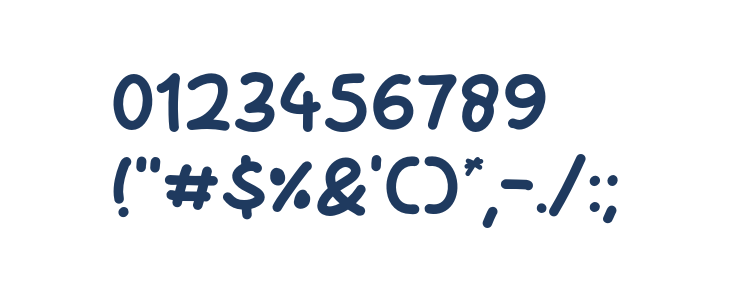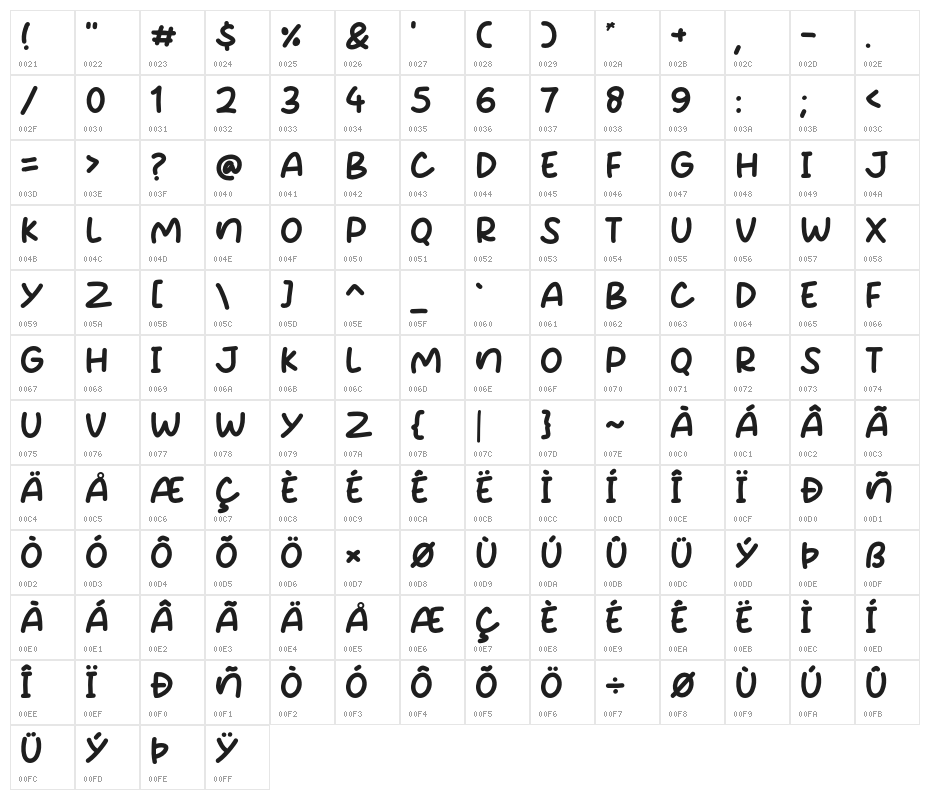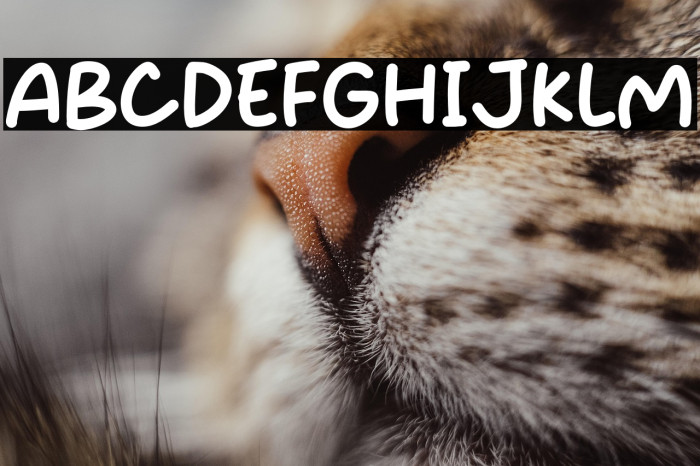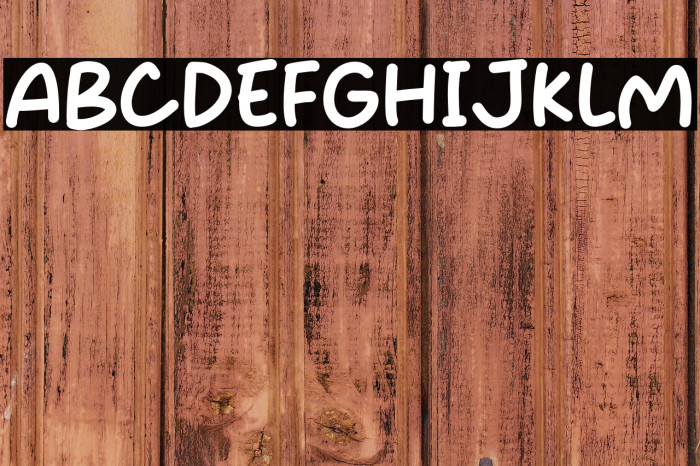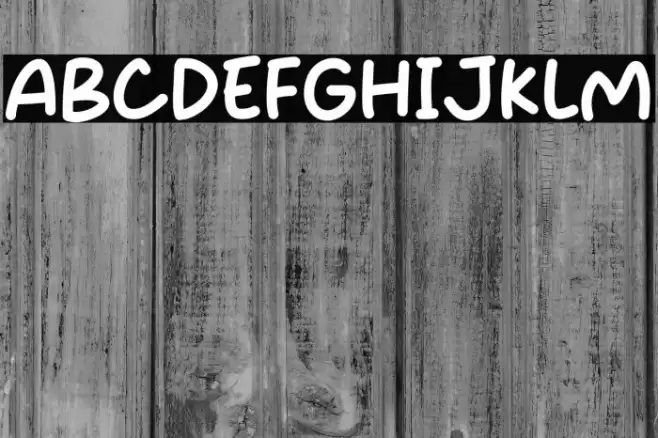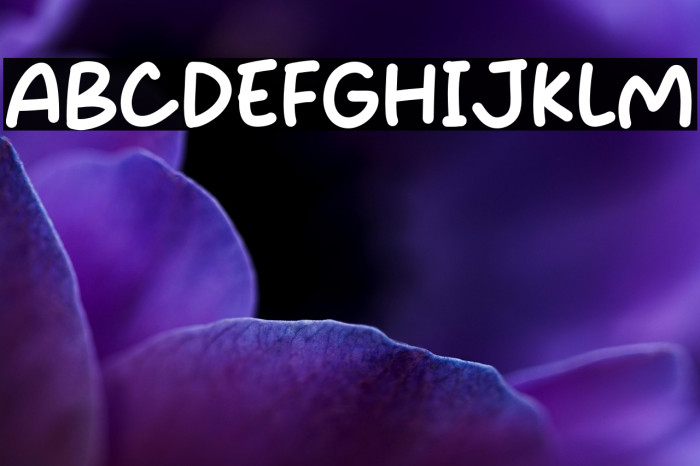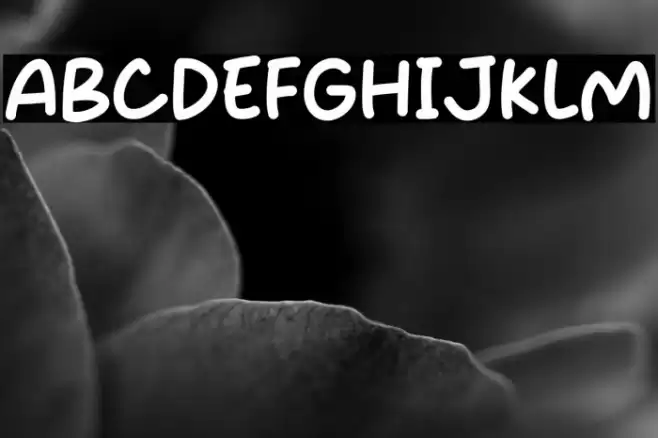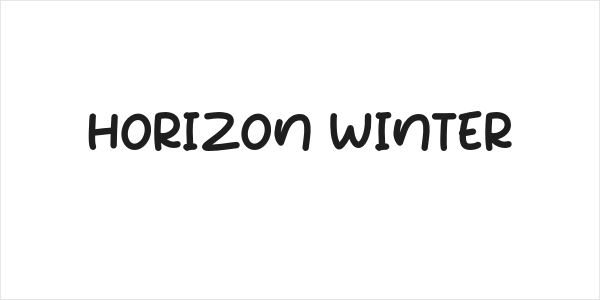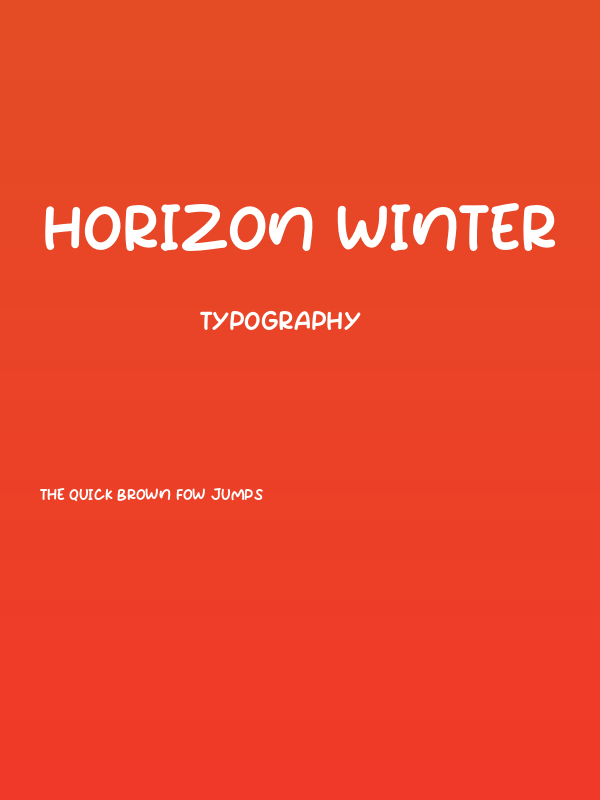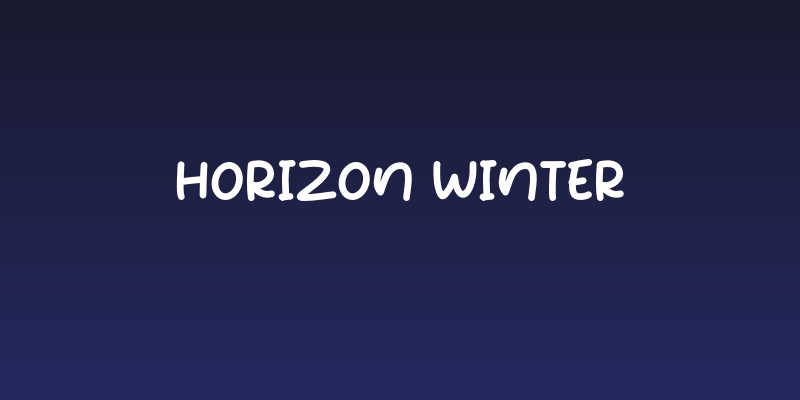
Horizon Winter Font
Horizon Winter Description
This font features a playful and rounded style, characterized by its smooth curves and friendly appearance. The letters are bold and slightly irregular, giving them a hand-drawn feel that adds a personal touch to any design. The numbers and special characters maintain this consistent style, ensuring a cohesive look across all text elements. Its approachable and informal nature makes it suitable for projects that aim to convey warmth and creativity.
| Proposed Projects | Ideal for children's books, playful branding, casual invitations, and creative posters. |